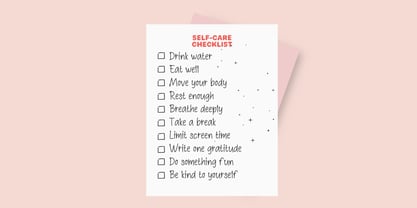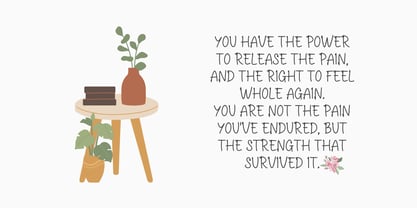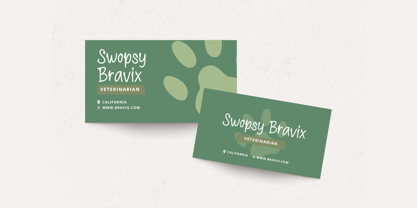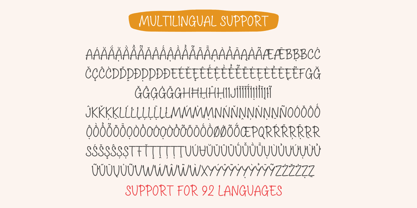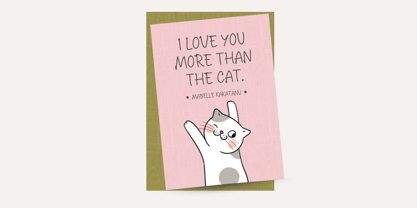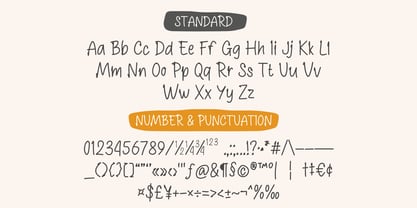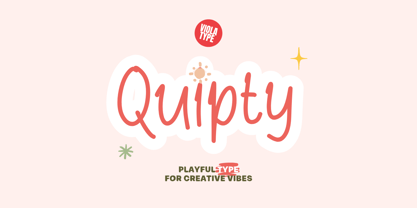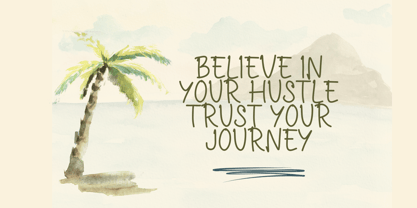
Quipty
Die Schriftfamilie Quipty wurde von David Kasidi, Hasna Viola entworfen und von Violatype veröffentlicht. Quipty enthält 1 Stile. Mehr über diese Familie
Say hello to Quipty, a handwritten font that may sound quirky—but that’s exactly where its charm begins. Playful in spirit yet crafted with care, Quipty brings a fresh, approachable personality to your projects. Its clean lines and gentle curves strike a perfect balance between casual and confident, making it versatile for a wide range of creative needs.
From social media graphics to children’s books, product packaging to friendly branding, Quipty offers a light-hearted tone while maintaining clarity and legibility. Whether you're working on fun quotes, event invitations, or expressive logos, this font will add a unique voice to your design.